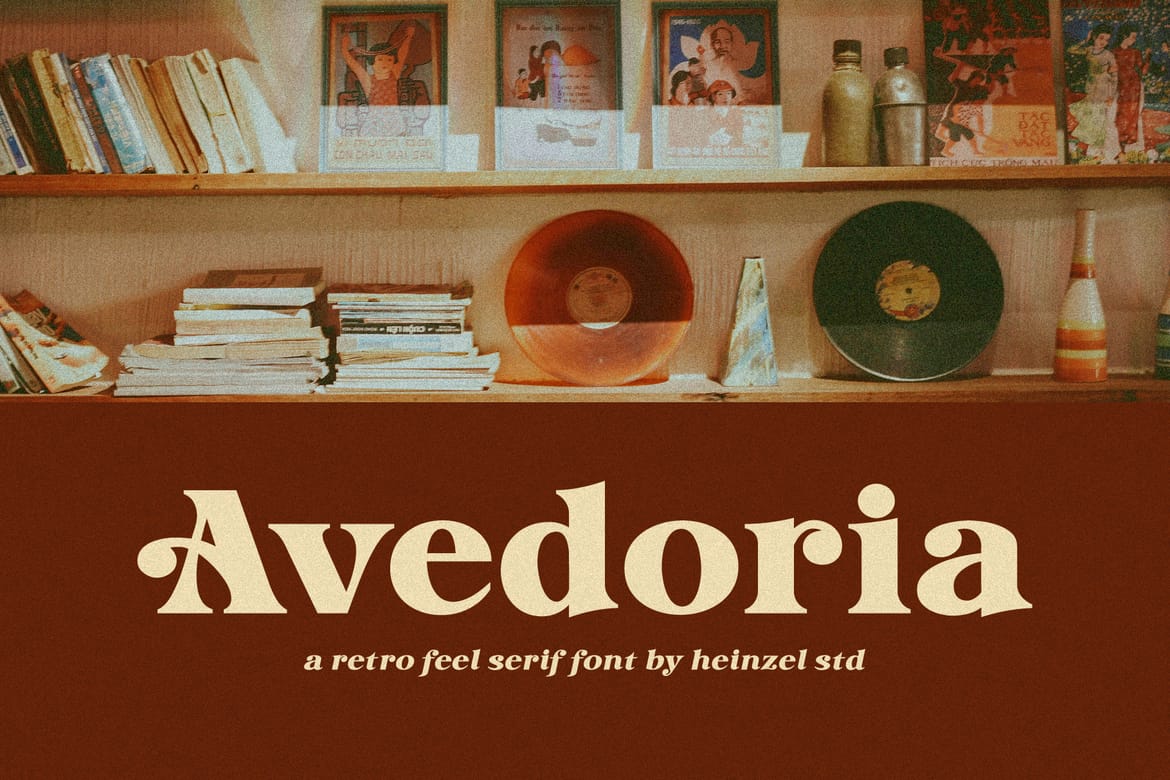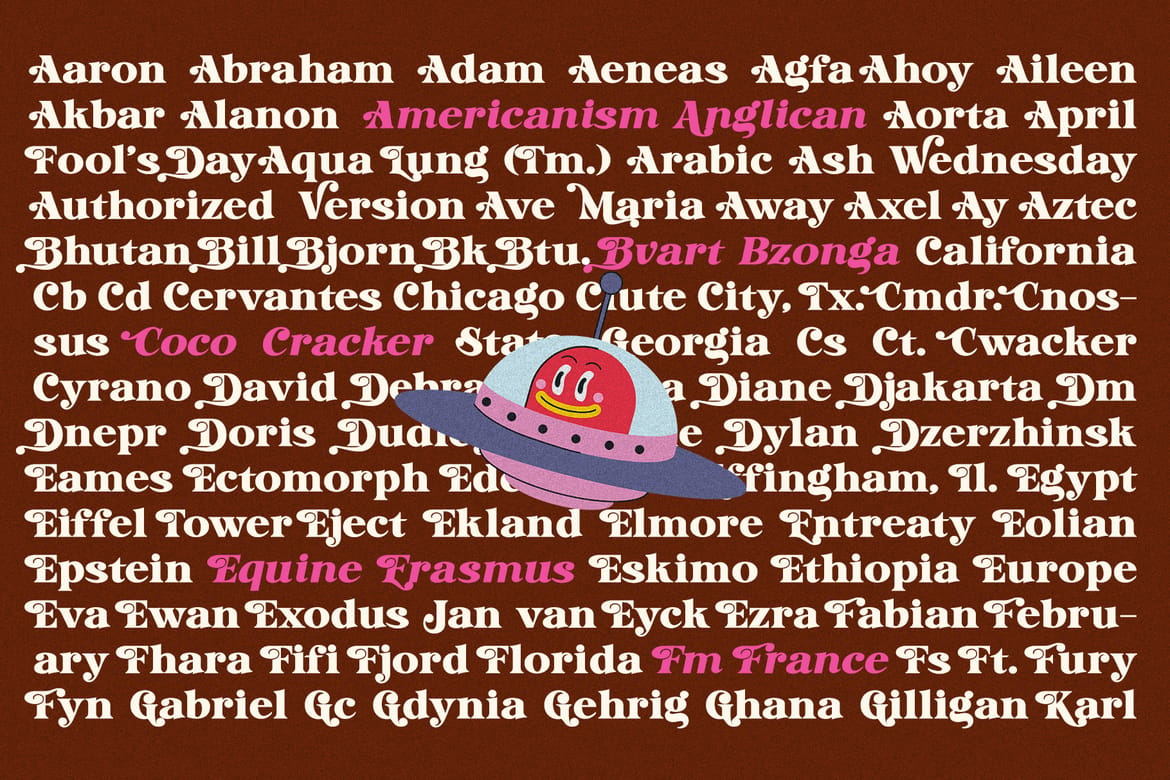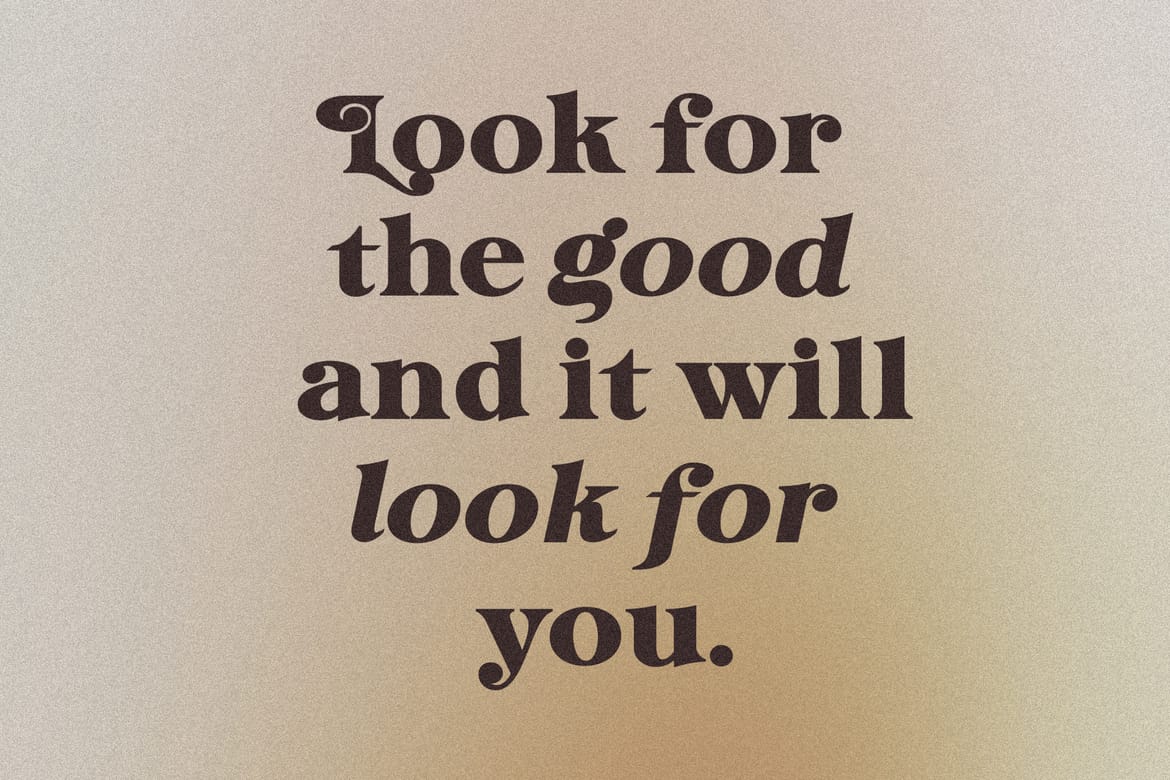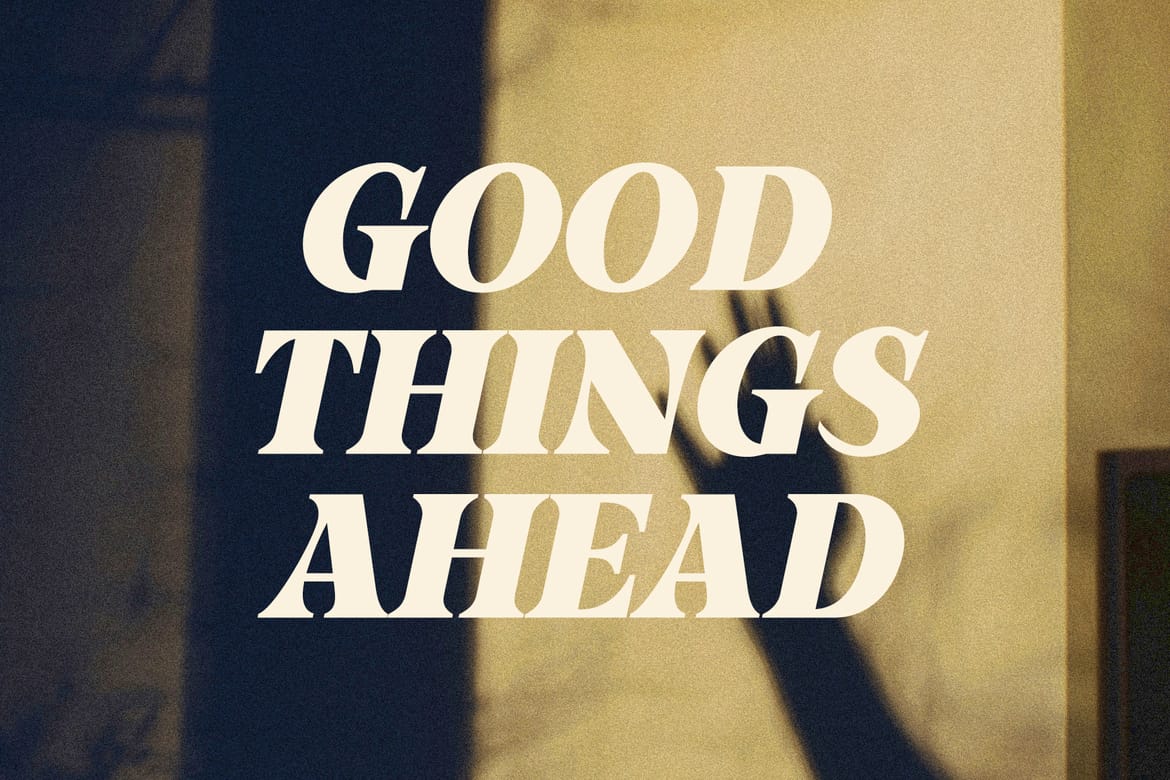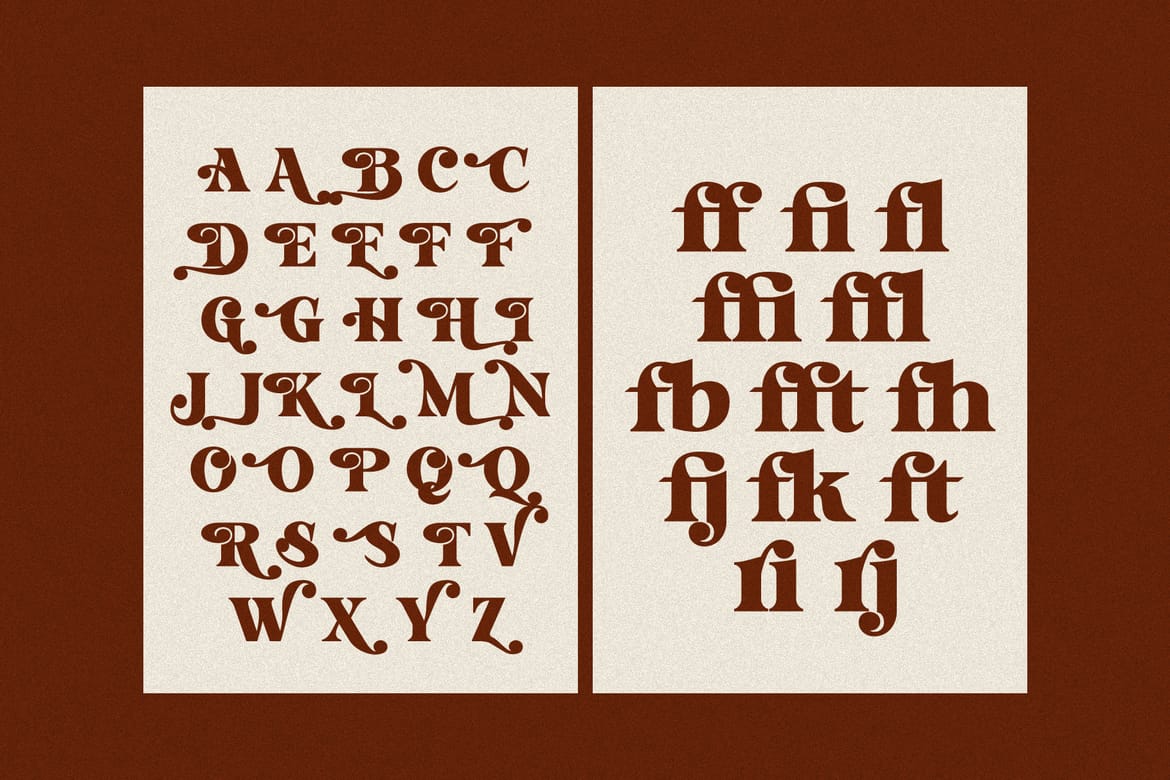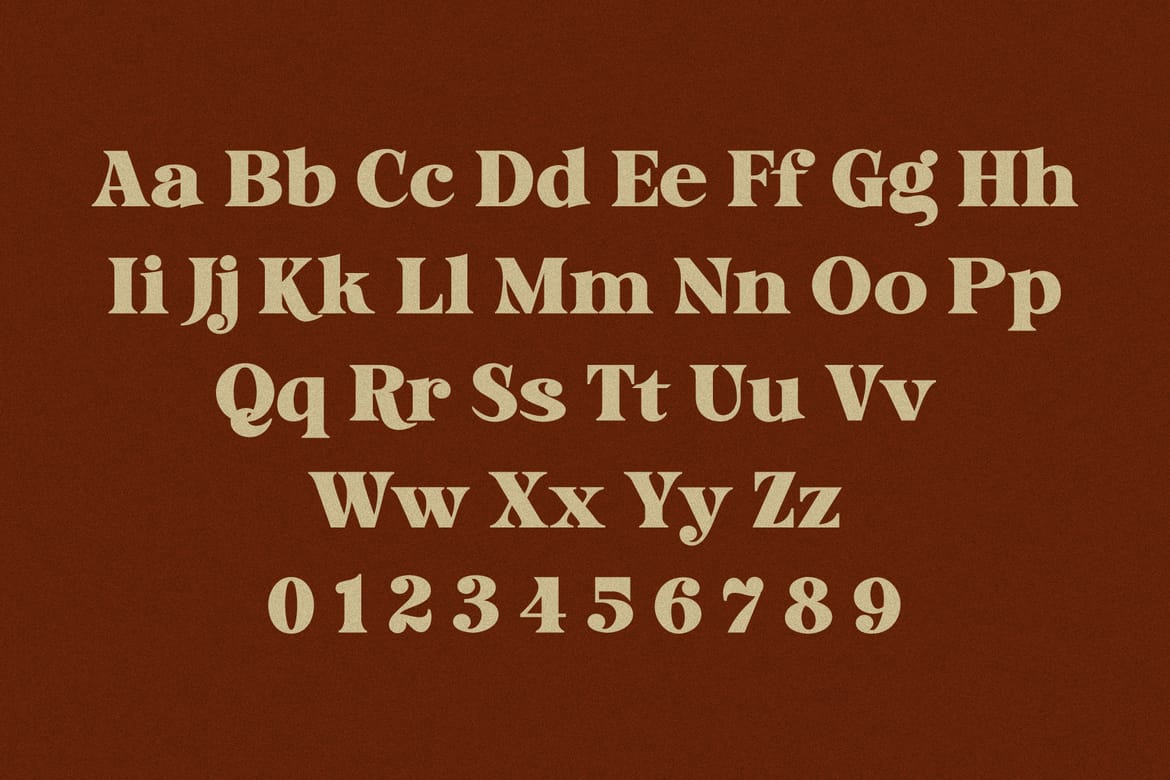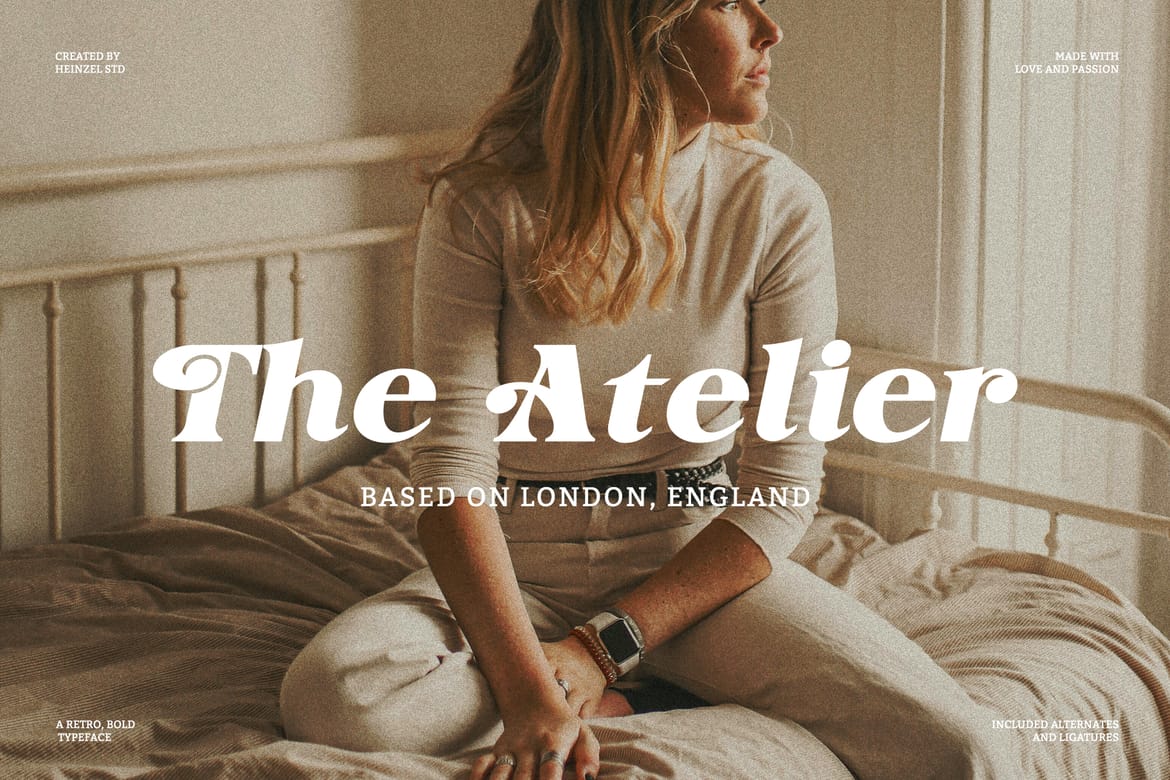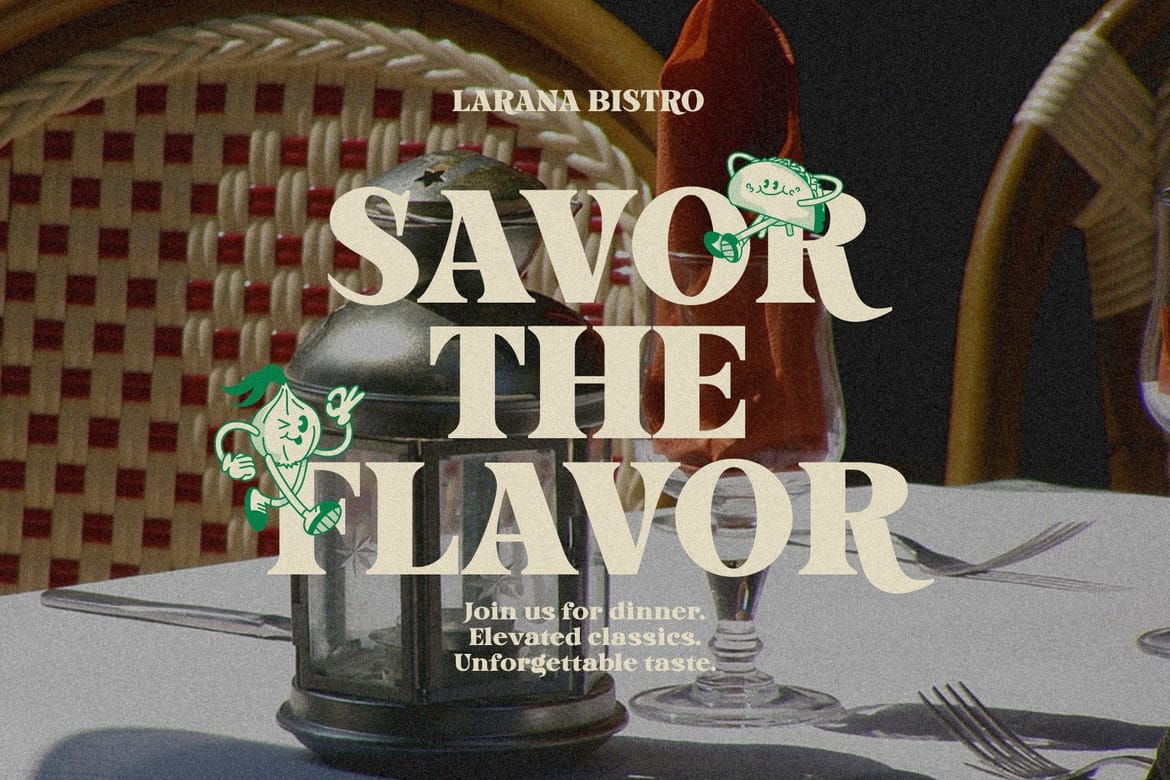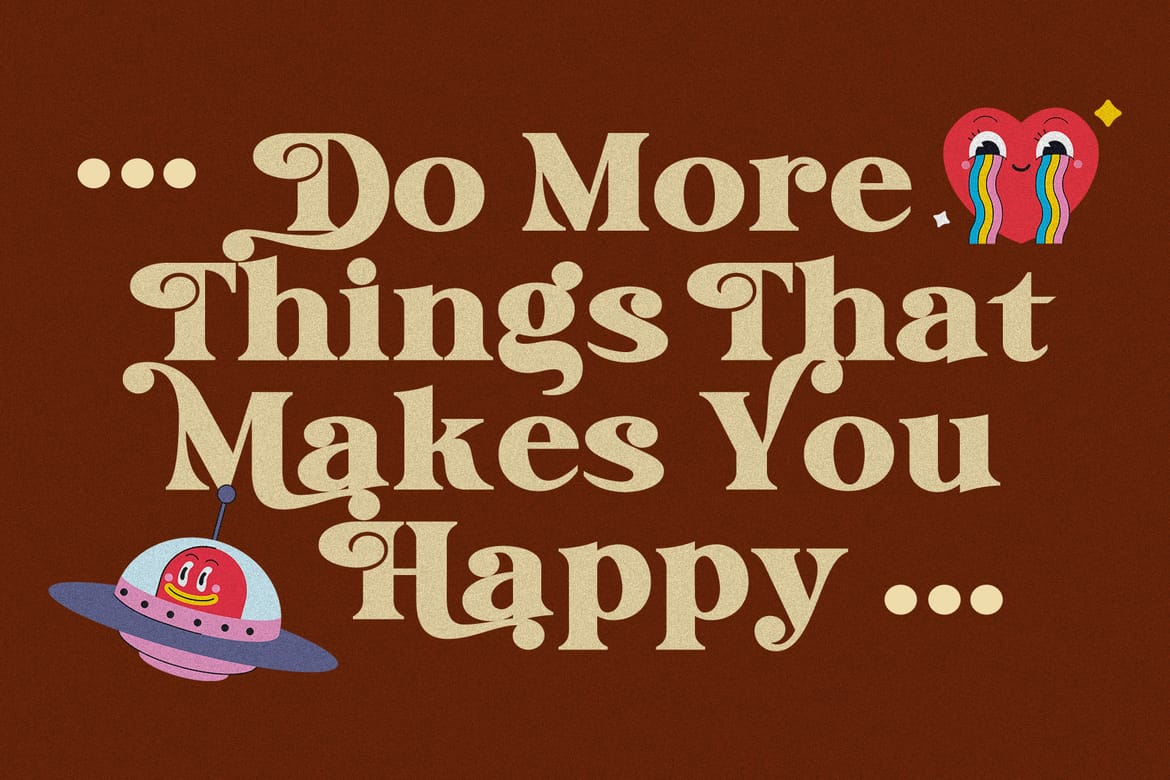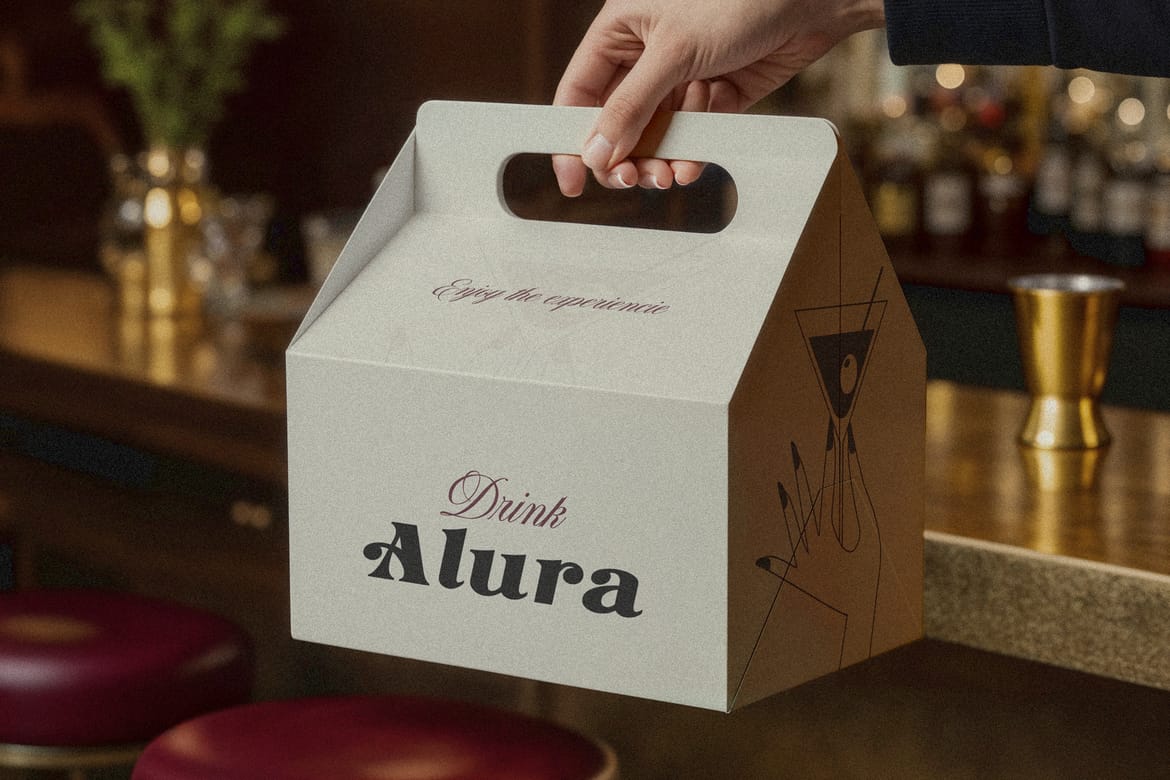
Avedoria is a bold retro serif font inspired by vintage editorial typography, classic vinyl-era aesthetics, and nostalgic 70s design culture. Featuring soft curves, dramatic serifs, and stylish letterforms, this typeface brings a warm and timeless personality to branding, logos, posters, packaging, fashion editorials, café menus, album covers, and social media graphics.